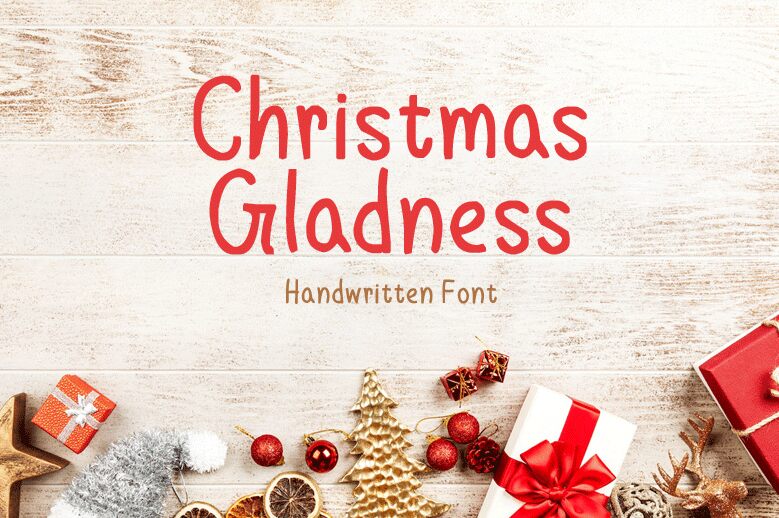
Christmas Gladness, designed by Md Shohail Bhuian, captures the heartwarming essence of holiday cheer in its semi-light handwritten strokes. This font exudes a sweet and approachable vibe that stands out in a vast sea of typefaces. Its organic contours and playful character make it an ideal choice for personal greetings, festive branding, or any project that calls for a touch of warmth.
With Christmas Gladness, your creative ventures can harness the joyous spirit of the season. Whether it's for crafting cozy winter advertisements or designing endearing holiday cards, this font's versatility breathes life into your words, making every message feel like a personalized gift. Embrace its unique charm to infuse your designs with the genuine gladness of Christmas.